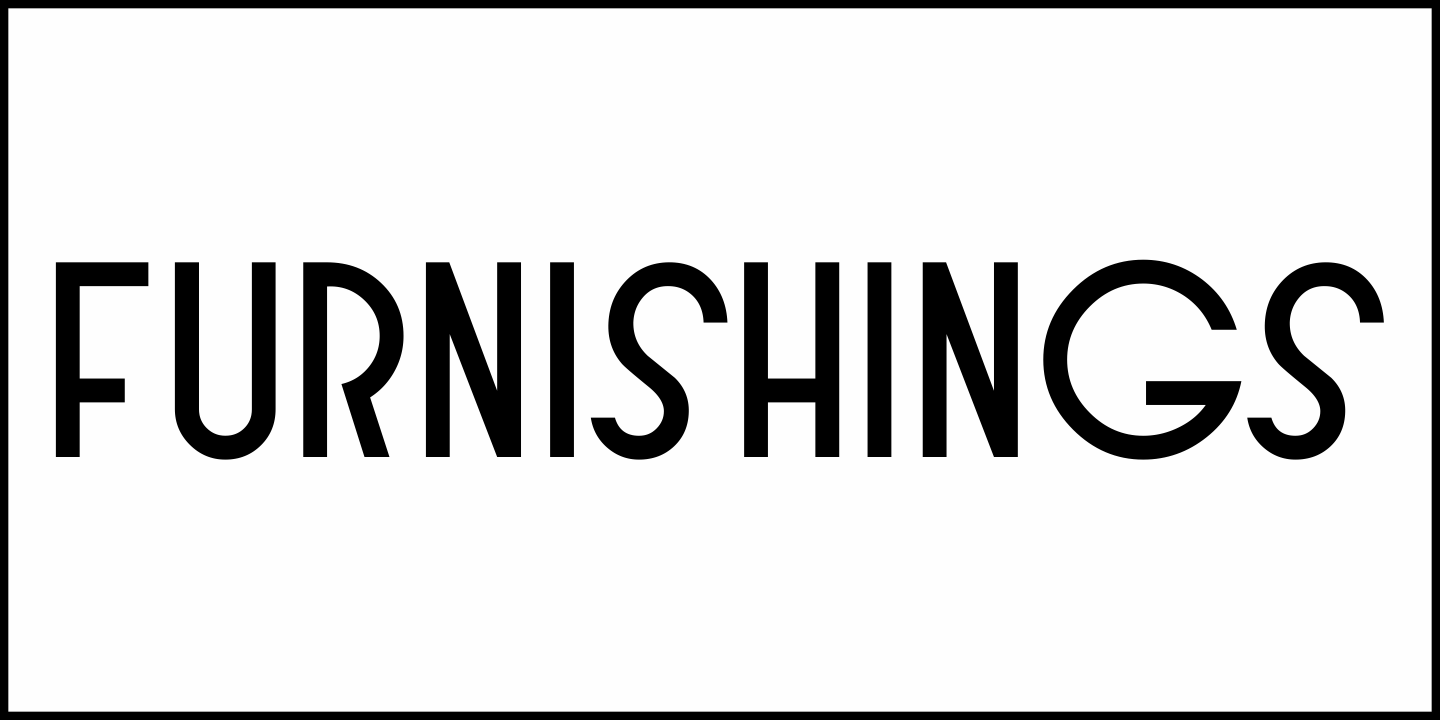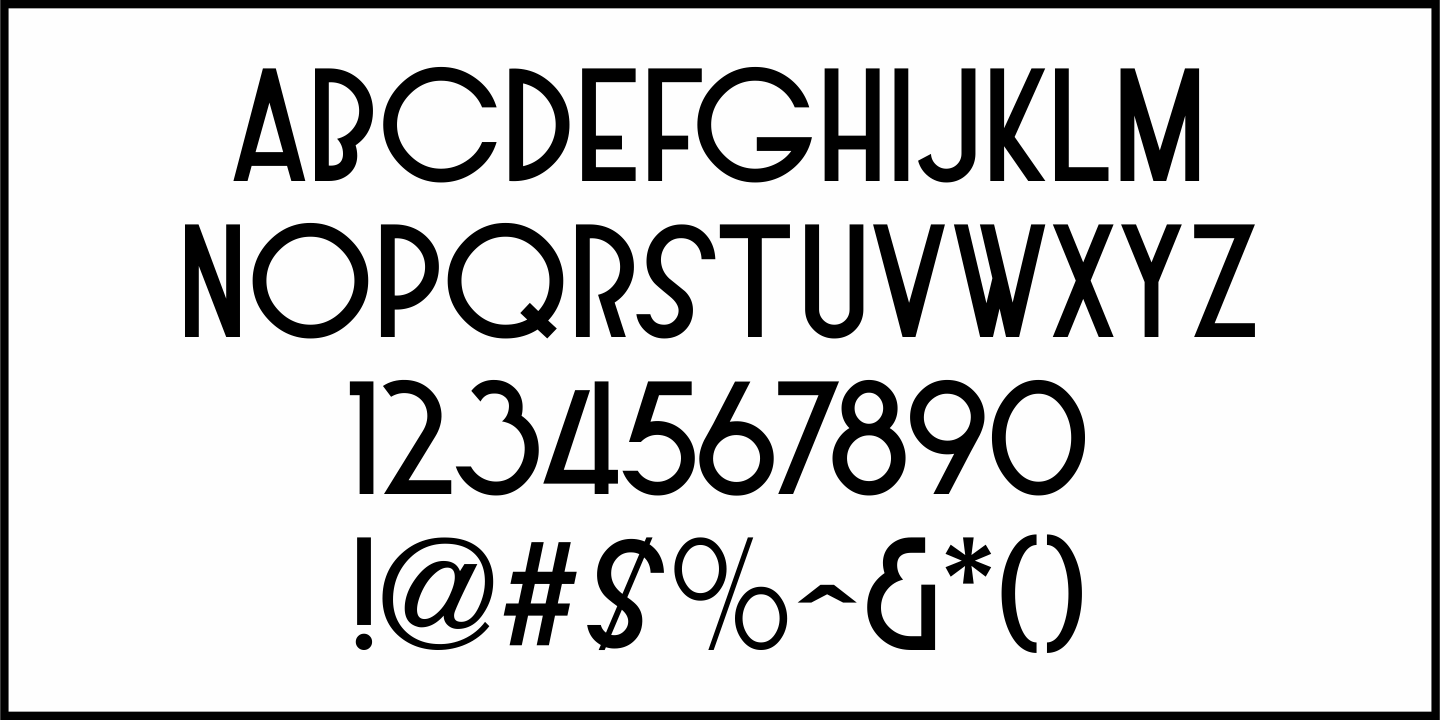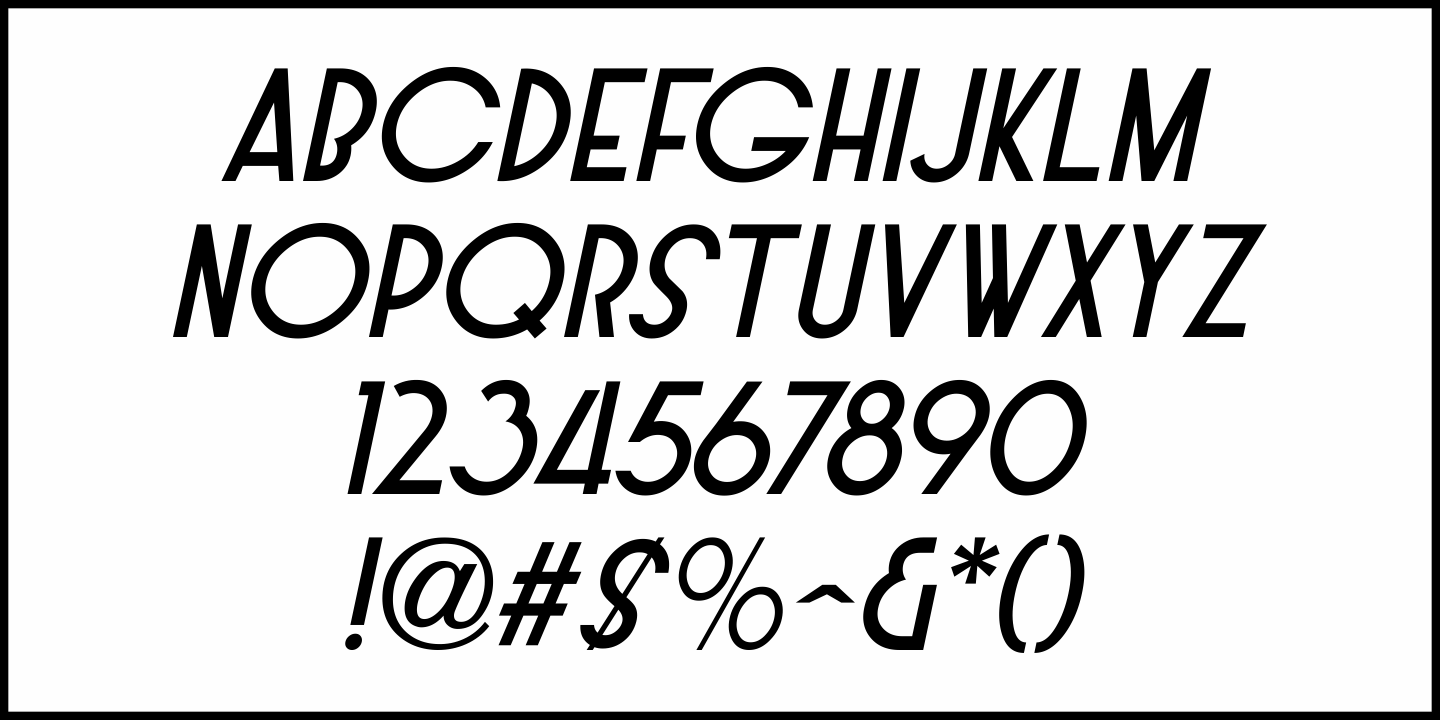
Furnishings
Sometimes, 'overdistancing' - looking past the obvious - can reveal things to a type designer that sparks a creative moment.
While watching the Three Stooges 1937 comedy short "3 Dumb Clucks", a location shot revealed a sign saying "Distributors for Bigelow Weavers" in an Art Deco sans serif design.
This prompted the design of the digtal typeface of that lettering called Furnishings JNL, which is available in both regular and oblique versions.
For those not familiar, Bigelow is a manufacturer of carpets.